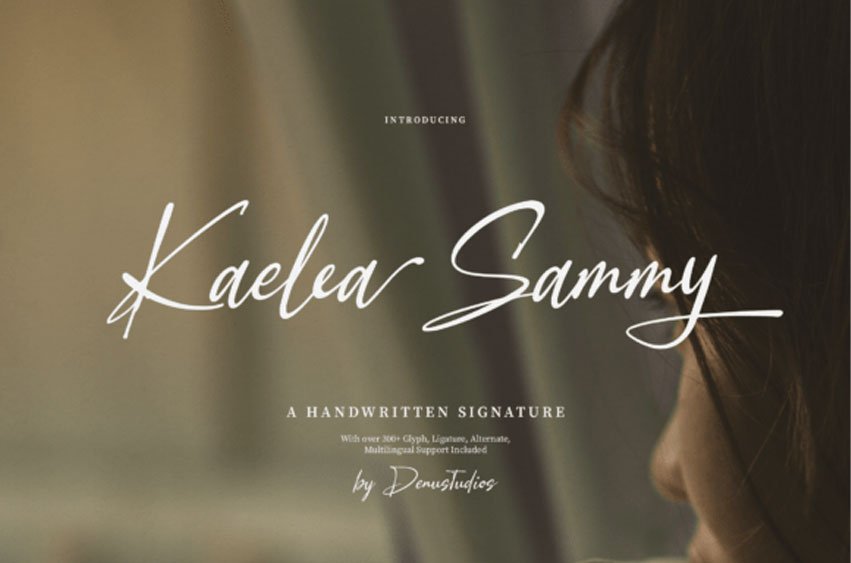
Kaelea Sammy Font
Kaelea Sammy Font is a stylish handwritten signature font that exudes elegance and personal flair.
With over 300 glyphs, ligatures, and alternates, this script font is perfect for logos, branding, social media posts, wedding designs, and personal signatures. Its graceful strokes and natural flow add a touch of sophistication to any design.